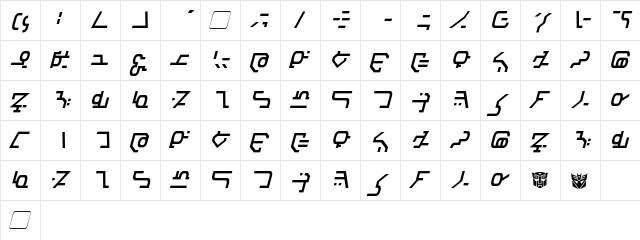
Modern Destronic Italic
Design Context for Modern Destronic Typeface
Modern Destronic is a composed and adaptable typeface that performs quietly and consistently across a wide range of design contexts. The slanted form adds forward momentum and visual energy.
Pro Tip: Try Modern Destronic for annotation and caption copy alongside an upright companion — the contrast in angle creates a dynamic but ordered typographic system.